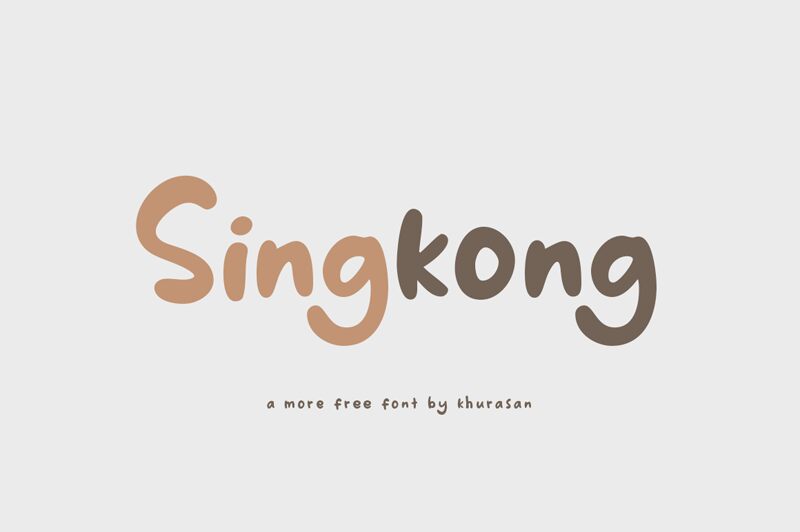
Singkong
Meet Singkong, the playful and vibrant font designed by Khurasan. This display font is perfect for projects that need to make a bold statement. Its semi-bold weight adds emphasis to any message, while its comic style brings a touch of fun and whimsy. Use Singkong on posters, book covers, or even branding materials for a unique and eye-catching design. Whether you're looking to add some personality to your project or simply stand out from the crowd, Singkong is the perfect choice. The wide range of applications makes it suitable for anything from children's books to food packaging!